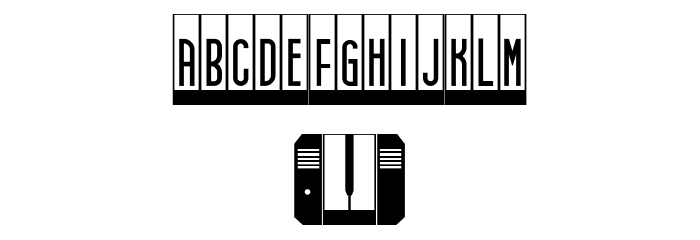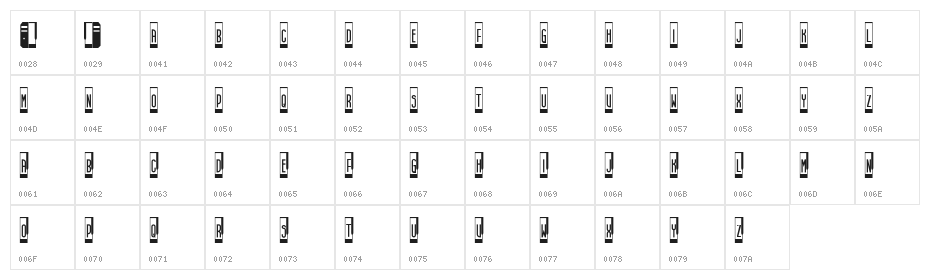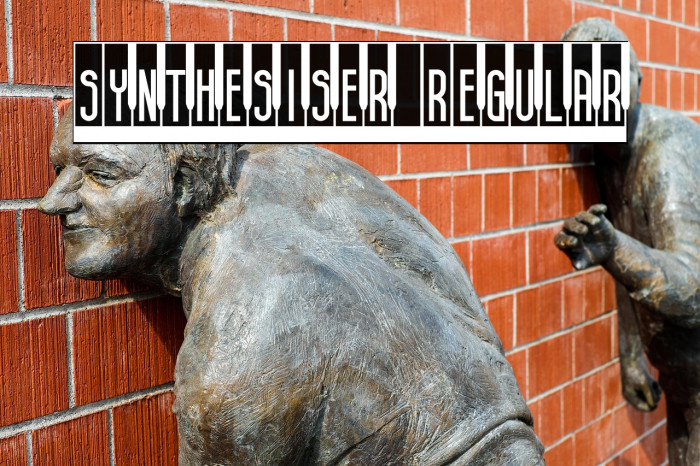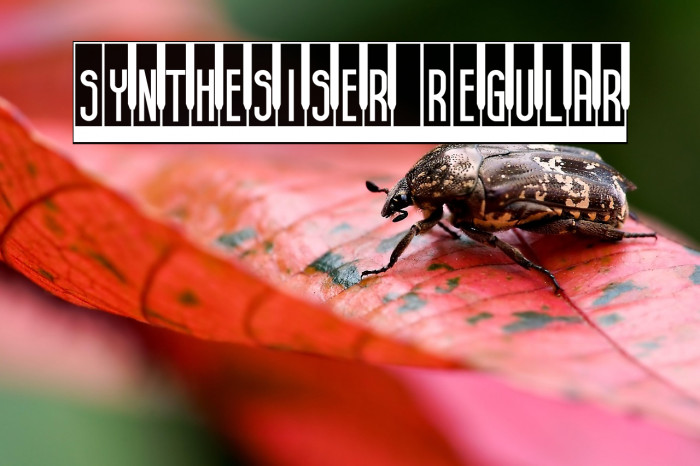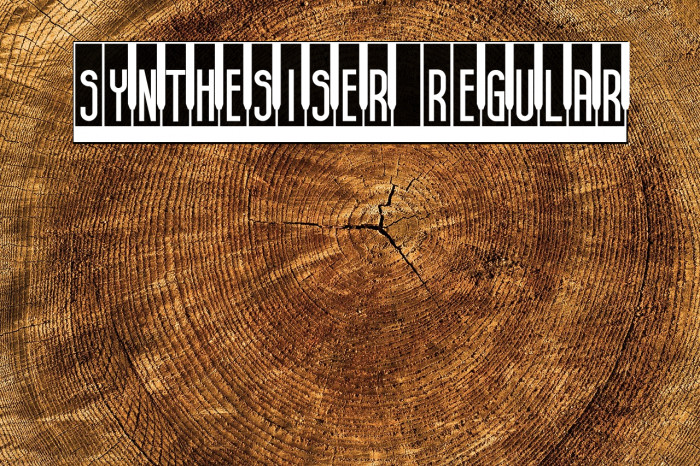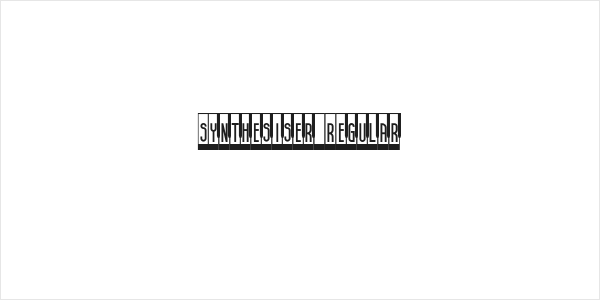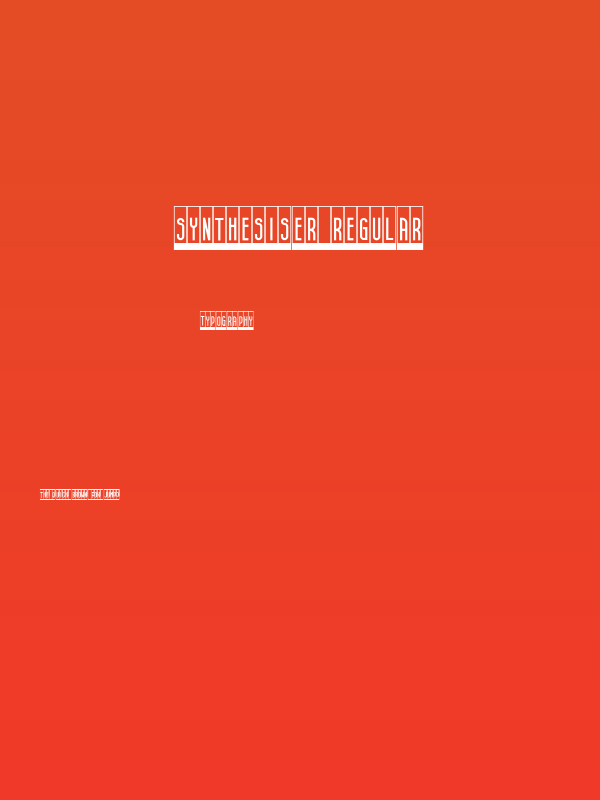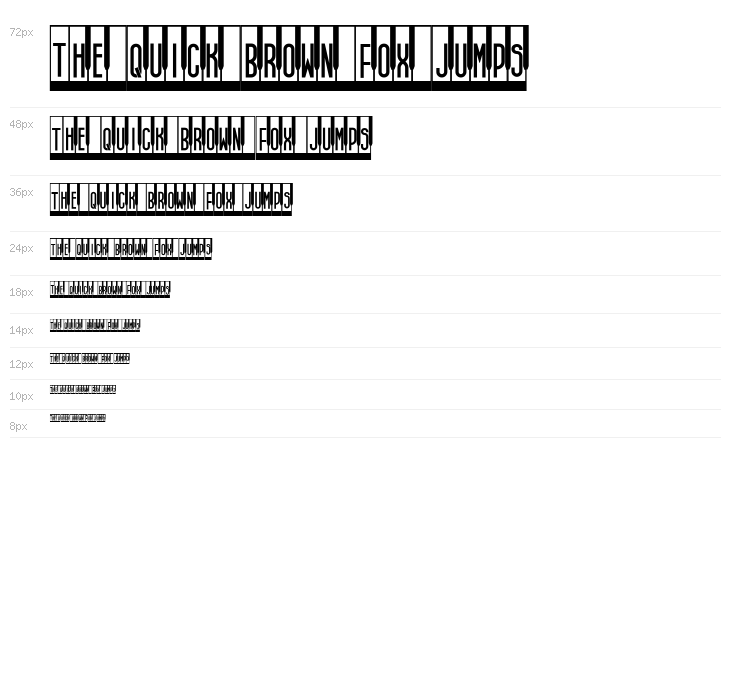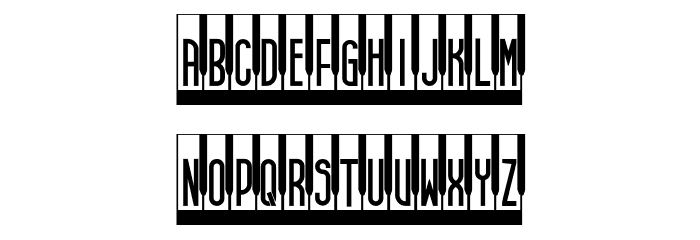
Synthesiser Regular Font
Synthesiser Regular Description
This font features a unique, futuristic design with a distinct digital aesthetic. Each character is enclosed within a rectangular box, giving it a structured and mechanical appearance. The letters are tall and narrow, with consistent vertical strokes and minimal curves, creating a sense of uniformity and precision. The geometric style is reminiscent of early computer displays or synthesizer interfaces, making it ideal for projects that require a modern, tech-inspired look. The font's boldness and high contrast between the strokes and the background enhance its readability, even at smaller sizes.
| Proposed Projects | Ideal for tech-related branding, digital interfaces, music album covers, and futuristic-themed designs. |